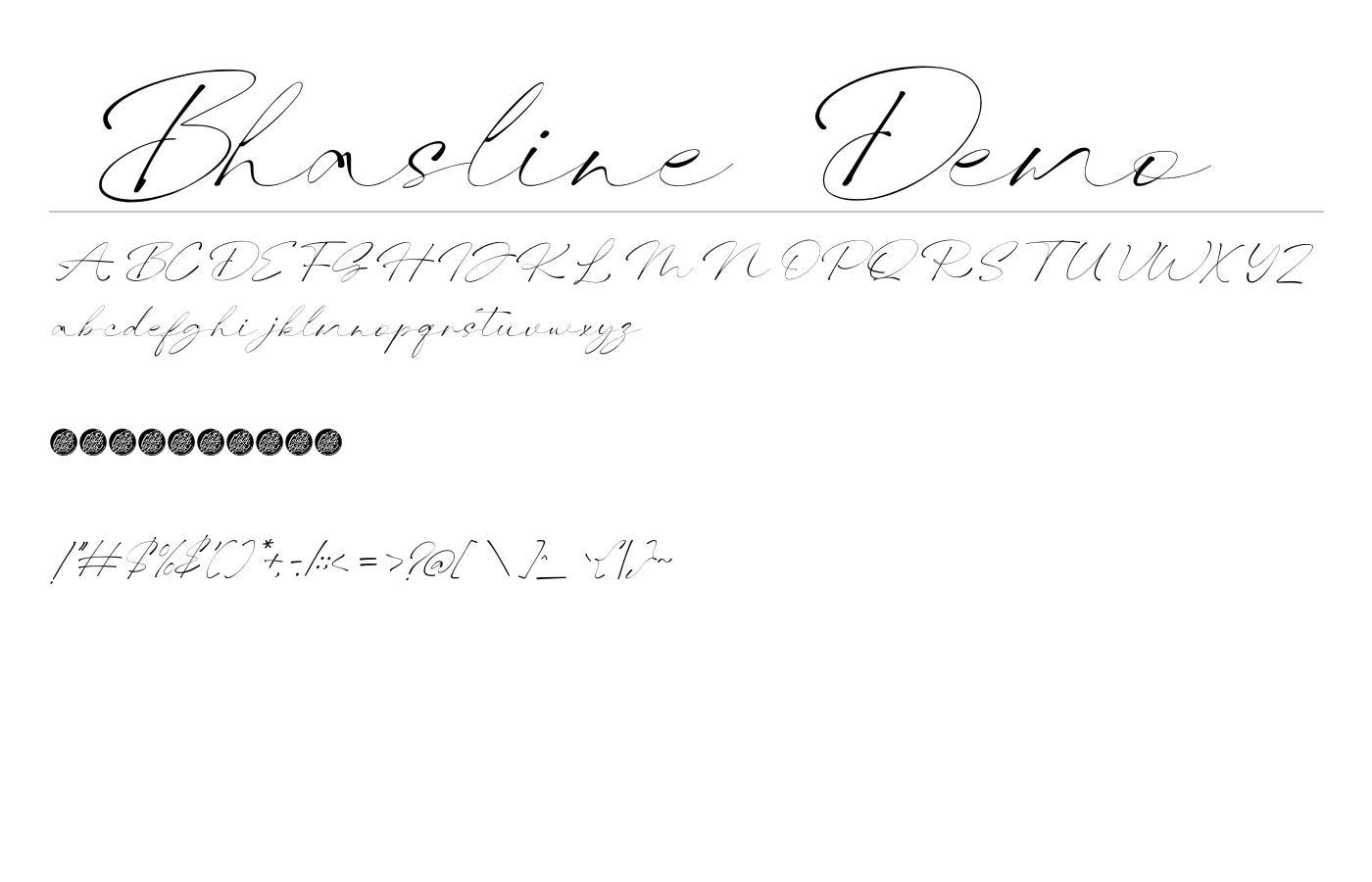
Bhasline is an elegant, delicate script font with a light, airy feel, characterized by its fine lines and graceful, flowing letterforms. Its slender strokes and high contrast give it a sophisticated and refined personality, making it perfect for luxury branding, wedding invitations, and stylish editorial projects where a touch of elegance and personality is desired. The font’s cursive style adds charm and warmth, especially for use in logos and headlines that seek to convey a sense of exclusivity and beauty.
Bhasline Font
About Bhasline Font
| Designer | Glyphstyle |